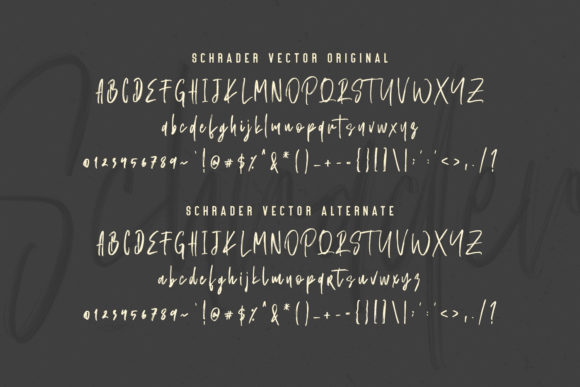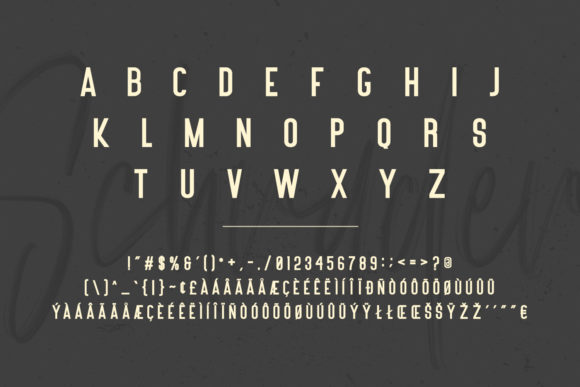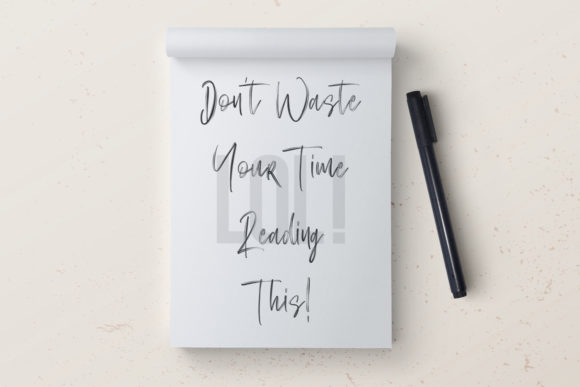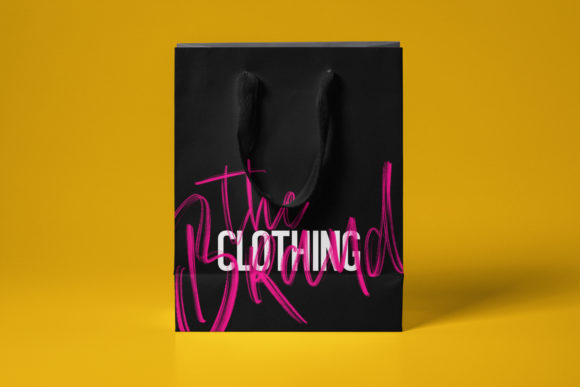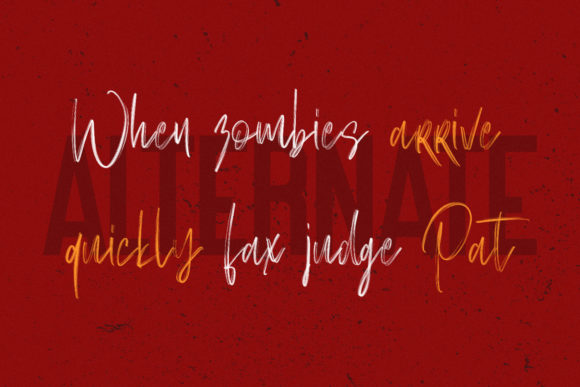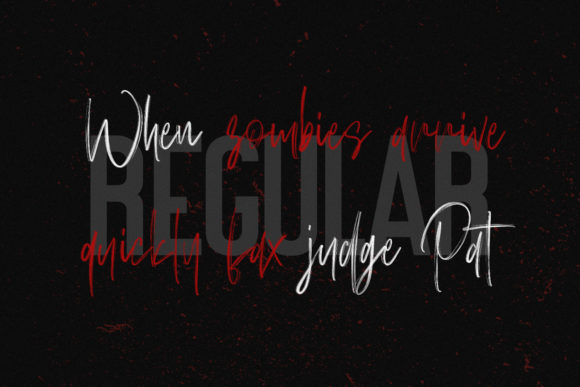
Introduction to Schrader Font
Schrader is a modern font family featuring authentic brush strokes.
Perfect for giving your designs a handcrafted feel .
Key Features of Schrader Font
Why Choose Schrader Font?
Schrader Font offers exceptional quality and versatility, making it a valuable addition to your design toolkit. Whether you’re creating for personal projects or commercial use, Schrader Font delivers professional results.